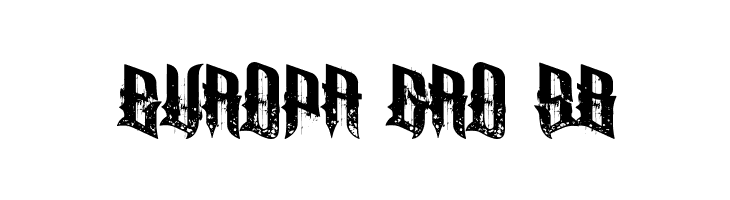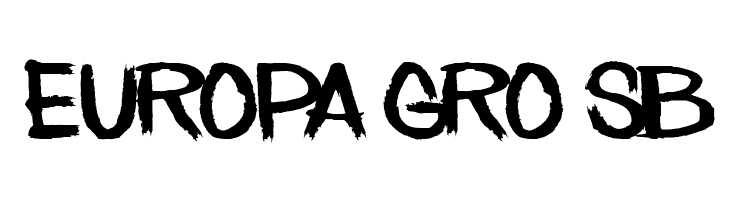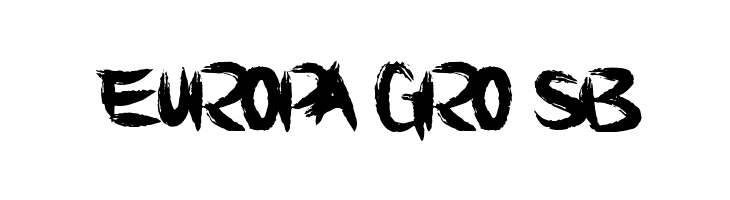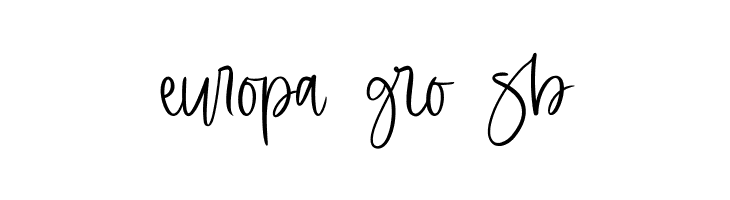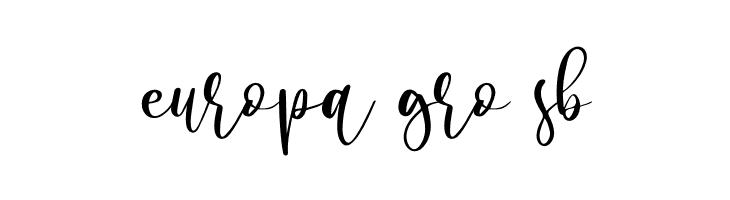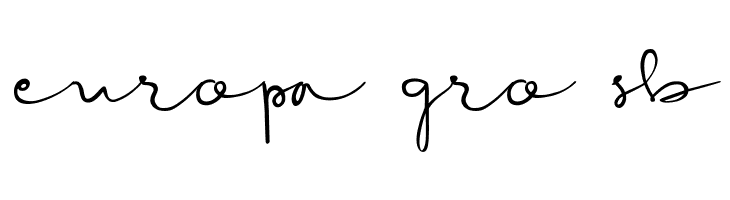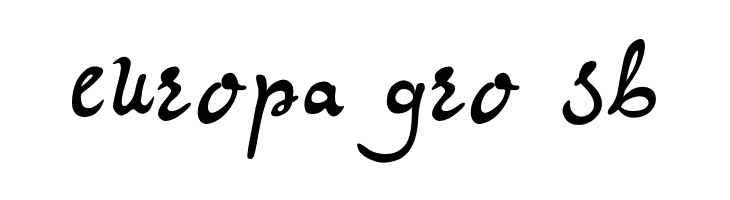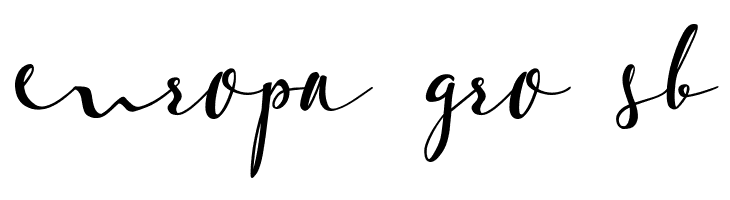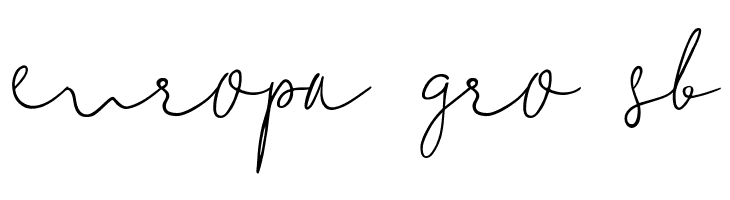
A bold, distressed font with sharp, angular edges and a gothic-modern fusion style.
A bold, grunge-style font with jagged, distressed characters.
A bold, brushstroke-style font with dynamic, jagged characters.
A playful handwritten font with lively, fluid letterforms and smooth strokes.
A sophisticated script font with elegant loops and high contrast strokes.
A playful, handwritten font with fluid and whimsical letterforms.
A playful and artistic script font with flowing, interconnected letterforms.
A dynamic and elegant script font with high contrast and flowing strokes.
A delicate, flowing script font with elegant, thin strokes and graceful curves.
A playful, handwritten font with dynamic strokes and a casual feel.